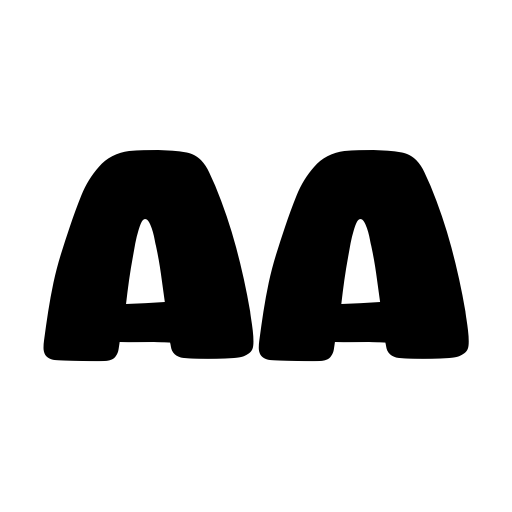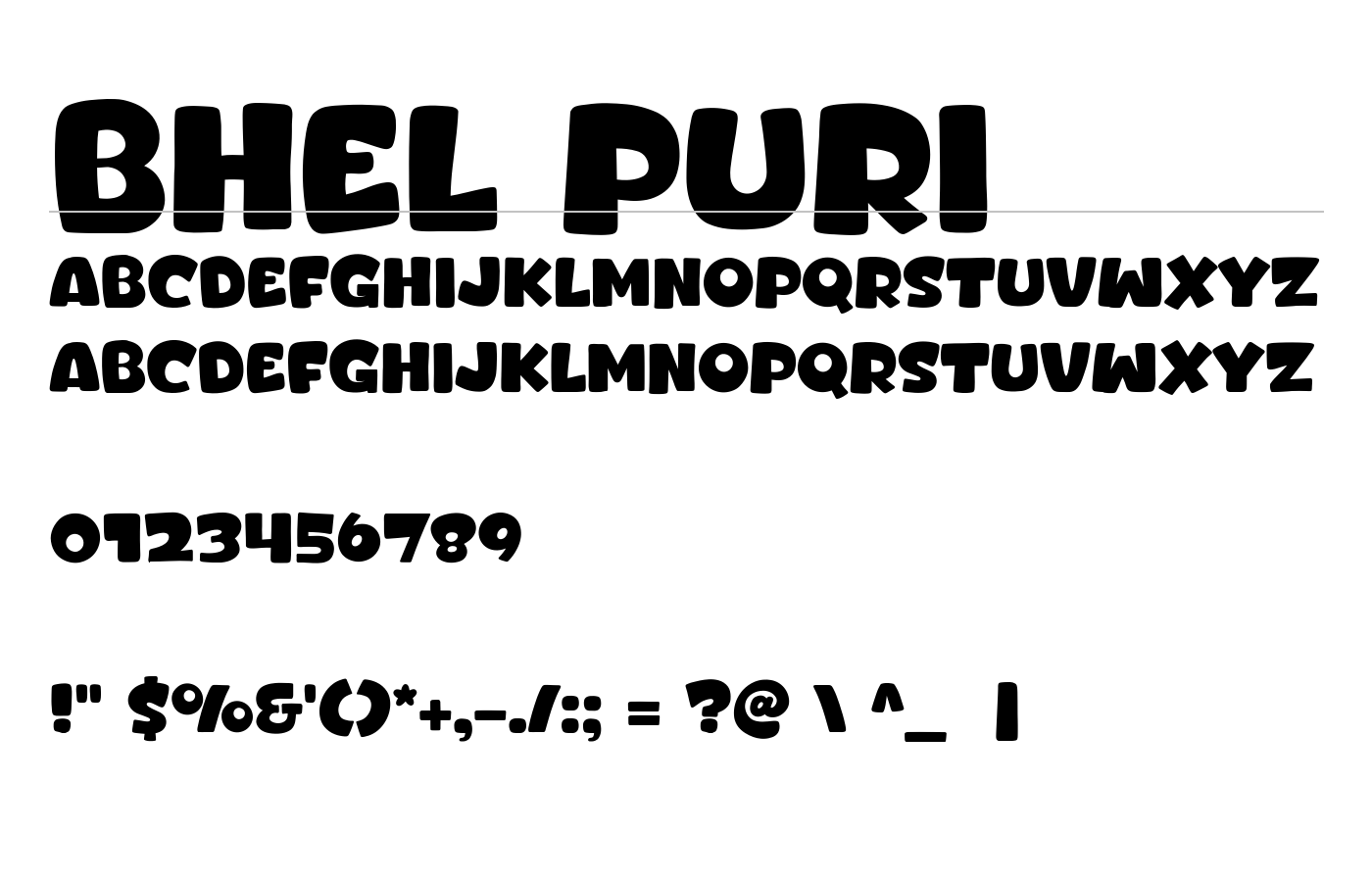
Bhel Puri is a bold, playful sans serif font with rounded edges and a chunky, hand-drawn feel that gives it a fun and informal personality. Its wide, uniform strokes and generous spacing make it highly legible and ideal for eye-catching headlines, children’s books, or vibrant branding that seeks a friendly and energetic tone. This font works especially well in creative and casual contexts where a lighthearted, approachable style is desired.
Bhel Puri Font
About Bhel Puri Font